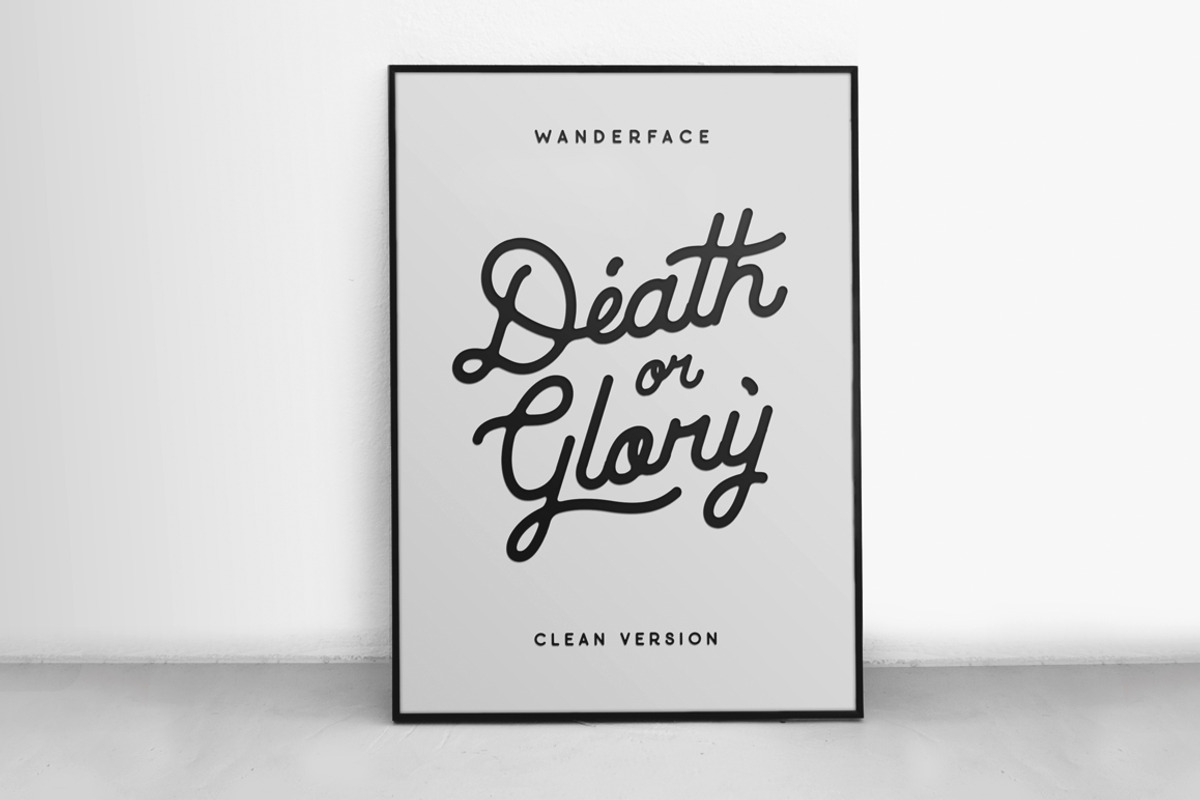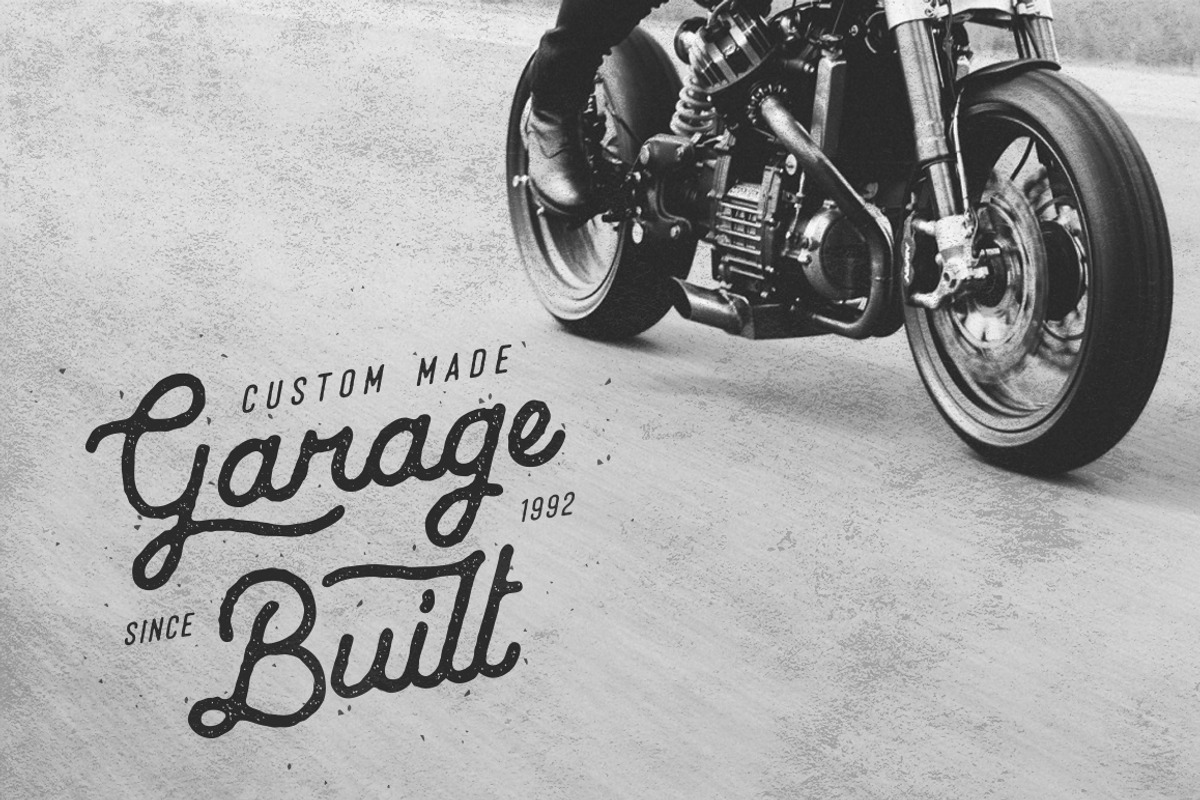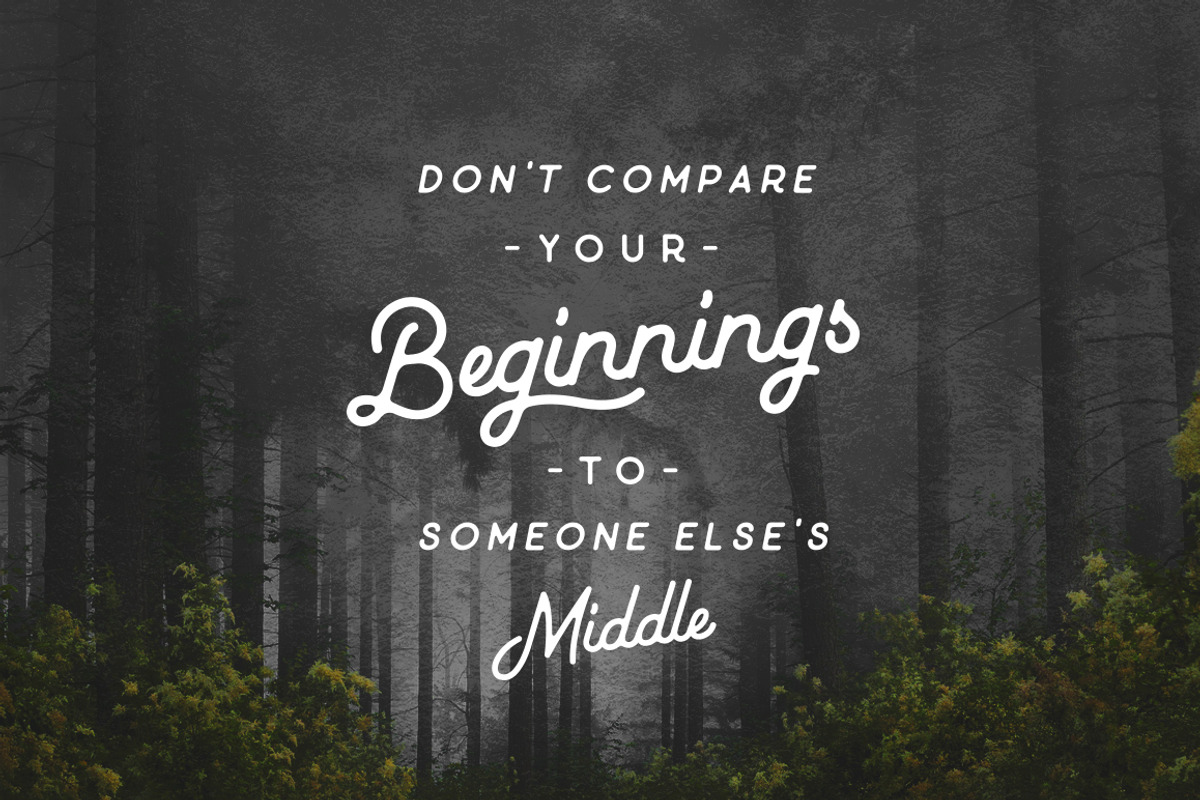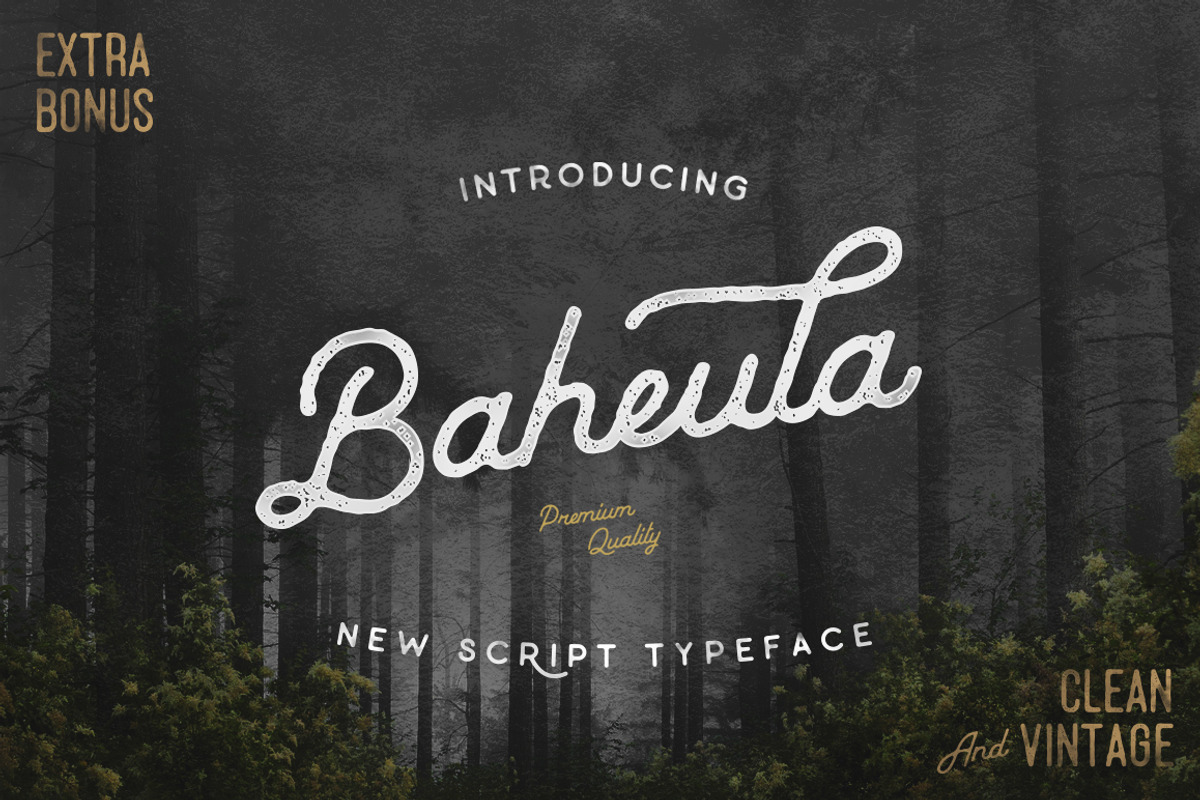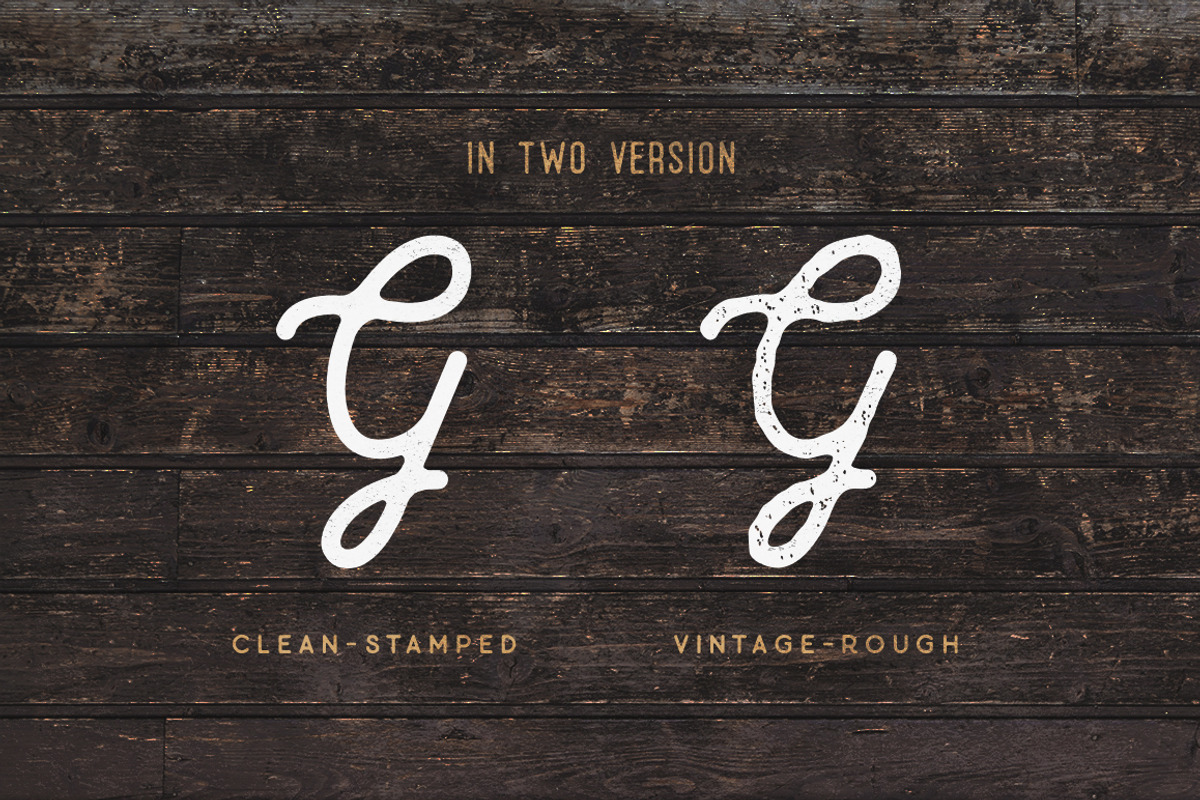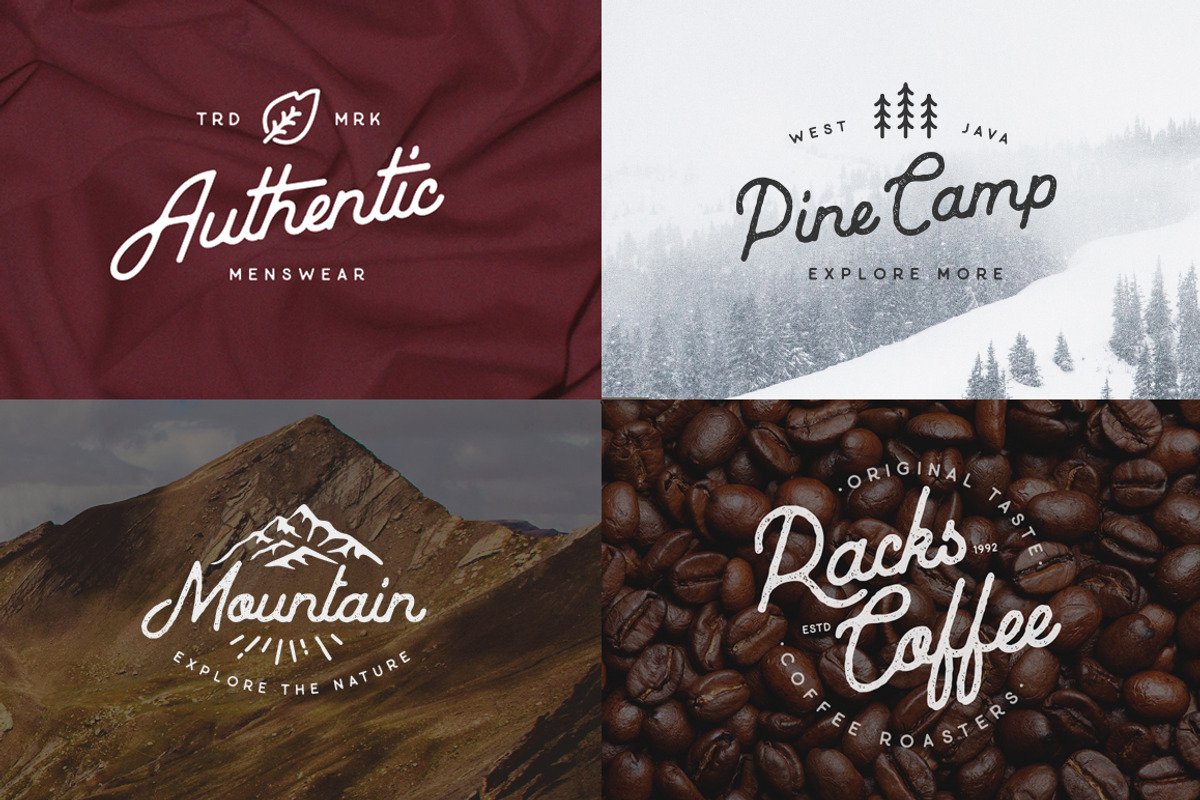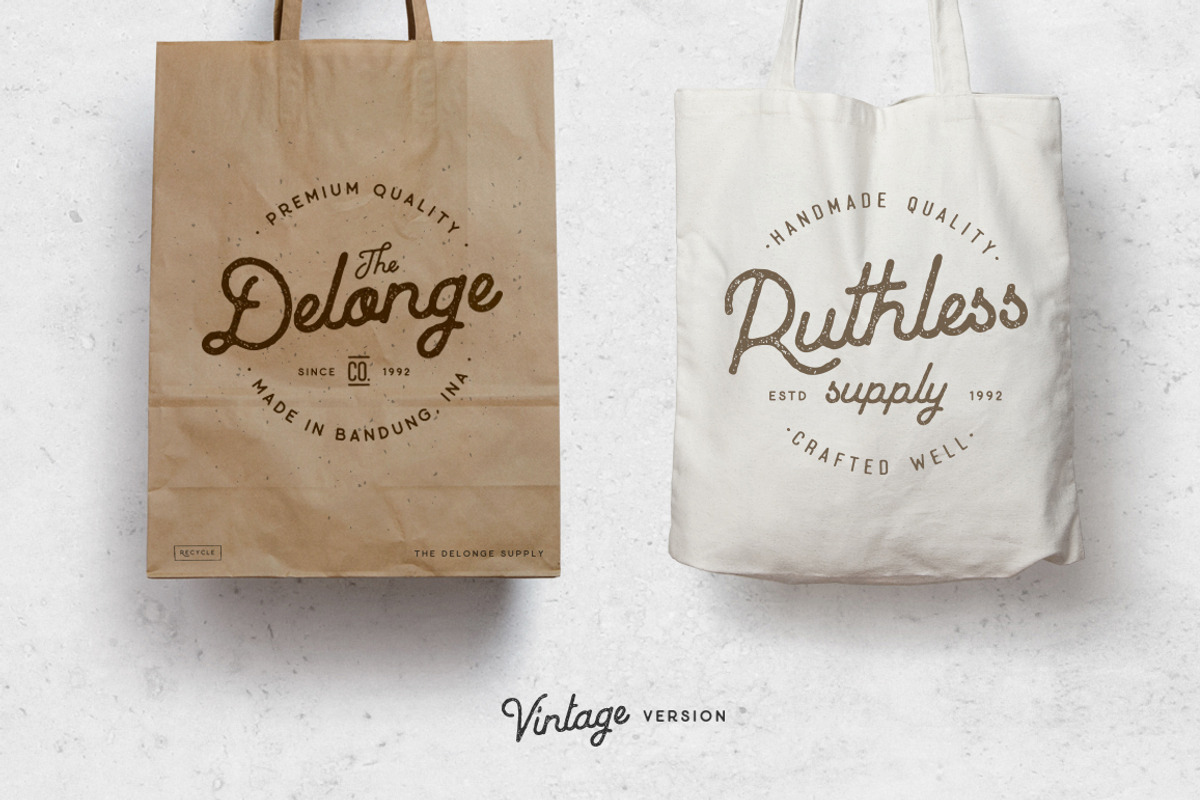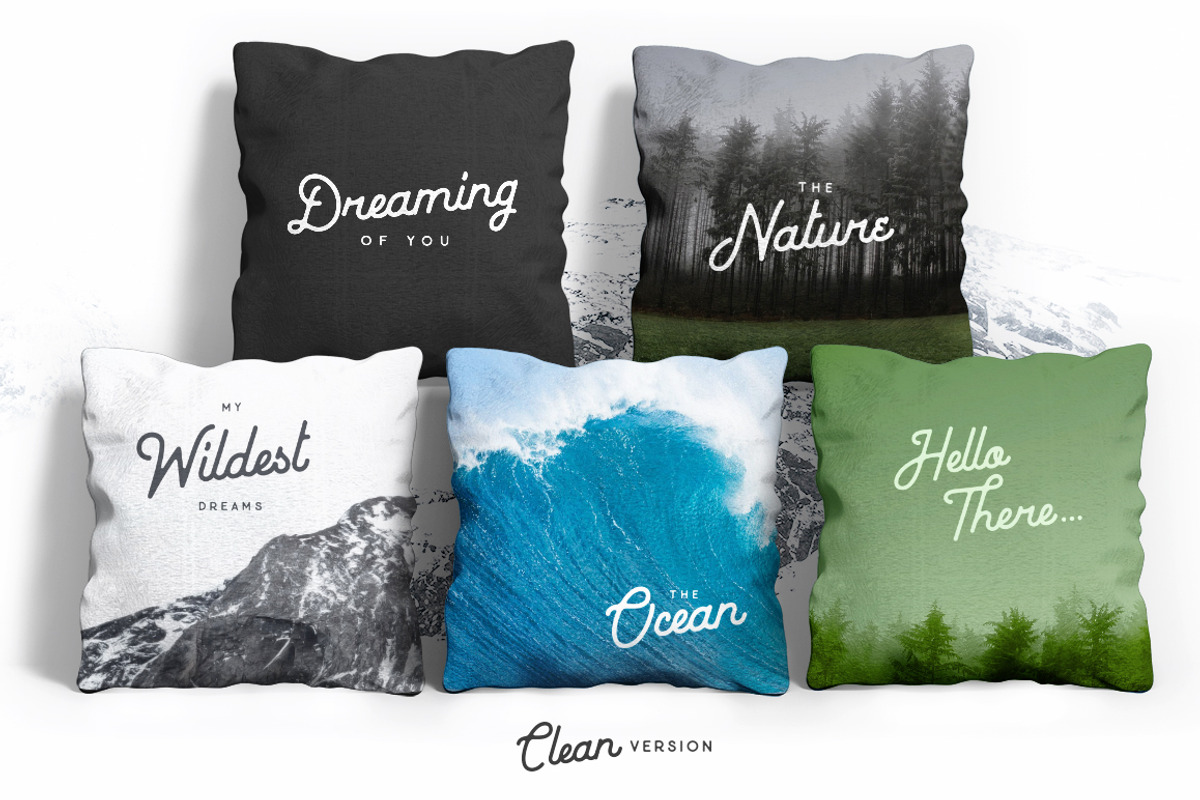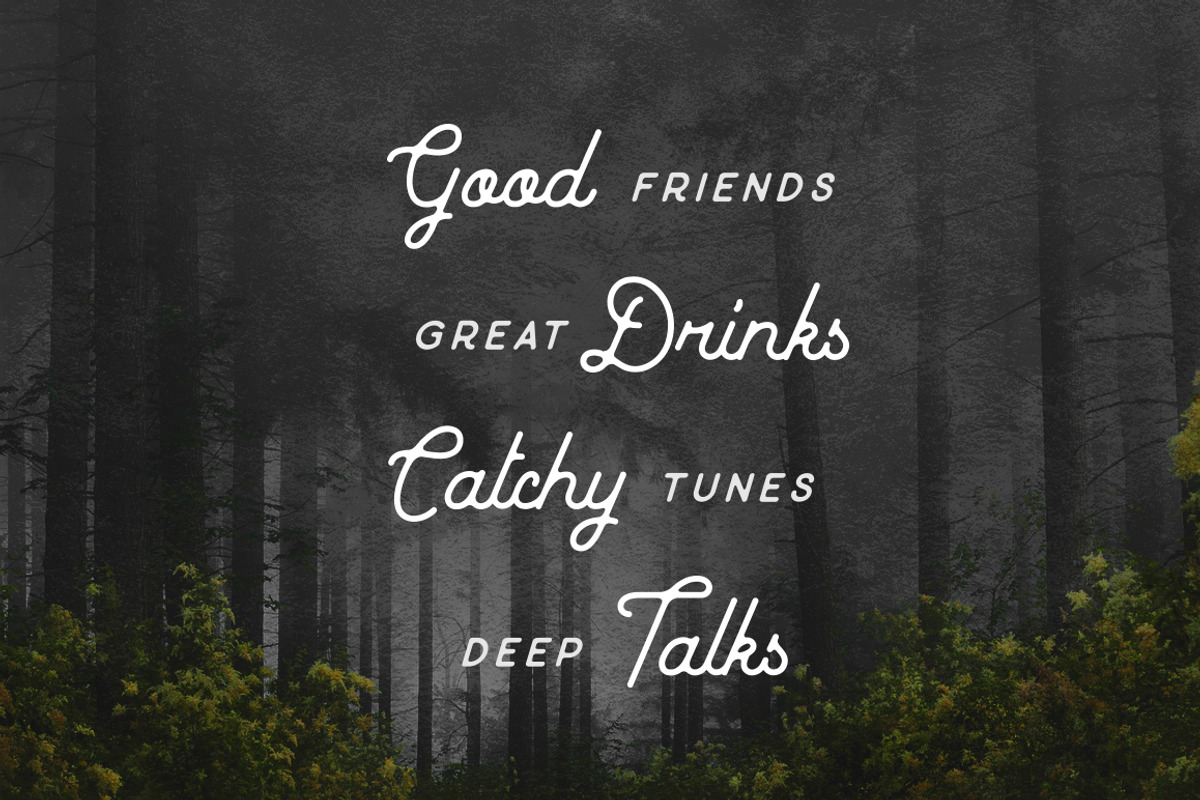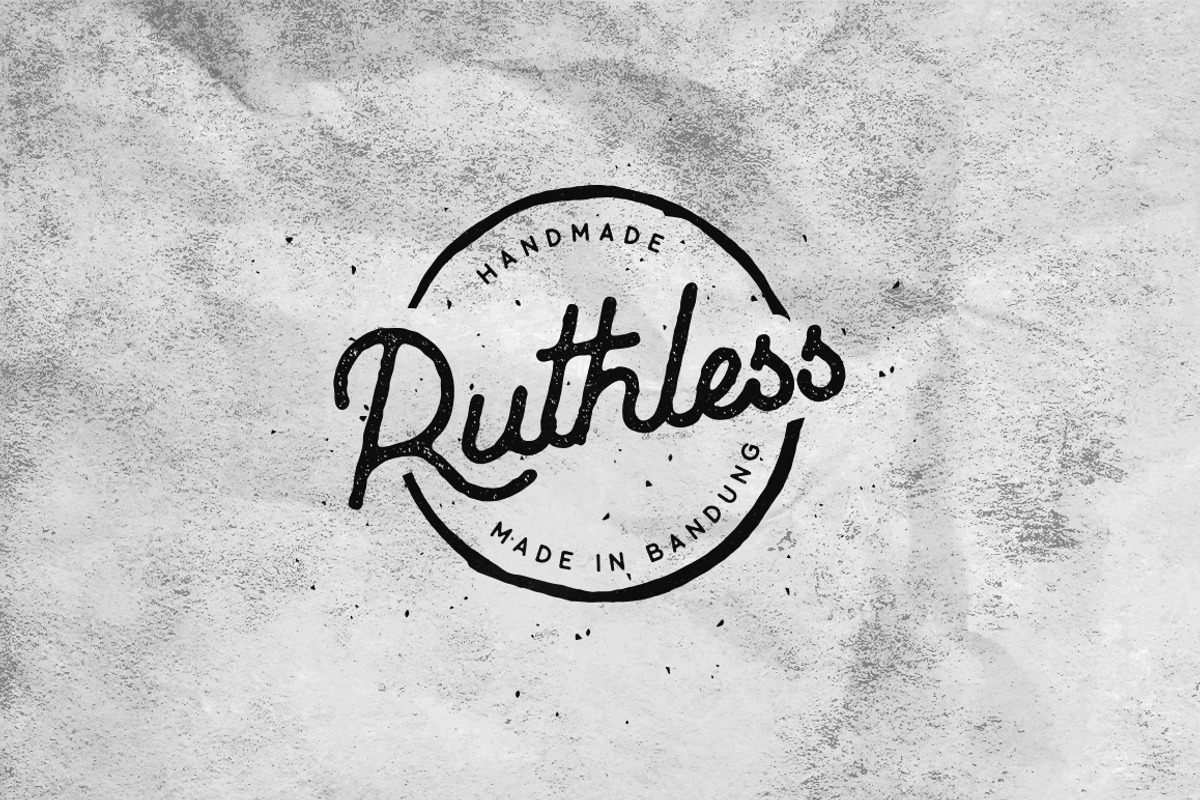
Baheula Vintage + Clean Typeface
Baheula Vintage Typeface
Baheula is a highly detailed vintage handcrafted font inspired from hand-drawn lettering and vintage style, to work together in aesthetic for creating masterful handlettering designs in a flash! The typeface is clean, simple, strong, classic and have a hand-drawn look feel. Suitable for digital lettering, branding materials, t-shirt, print, business cards, quotes, logo, poster, t-shirt, nature photography and applicable for any graphic design.
- Punctuation & Symbol
- Alternatives Character
- Stylistic Alternatives
- International Language
- Special Glyphs
- Open Type Features